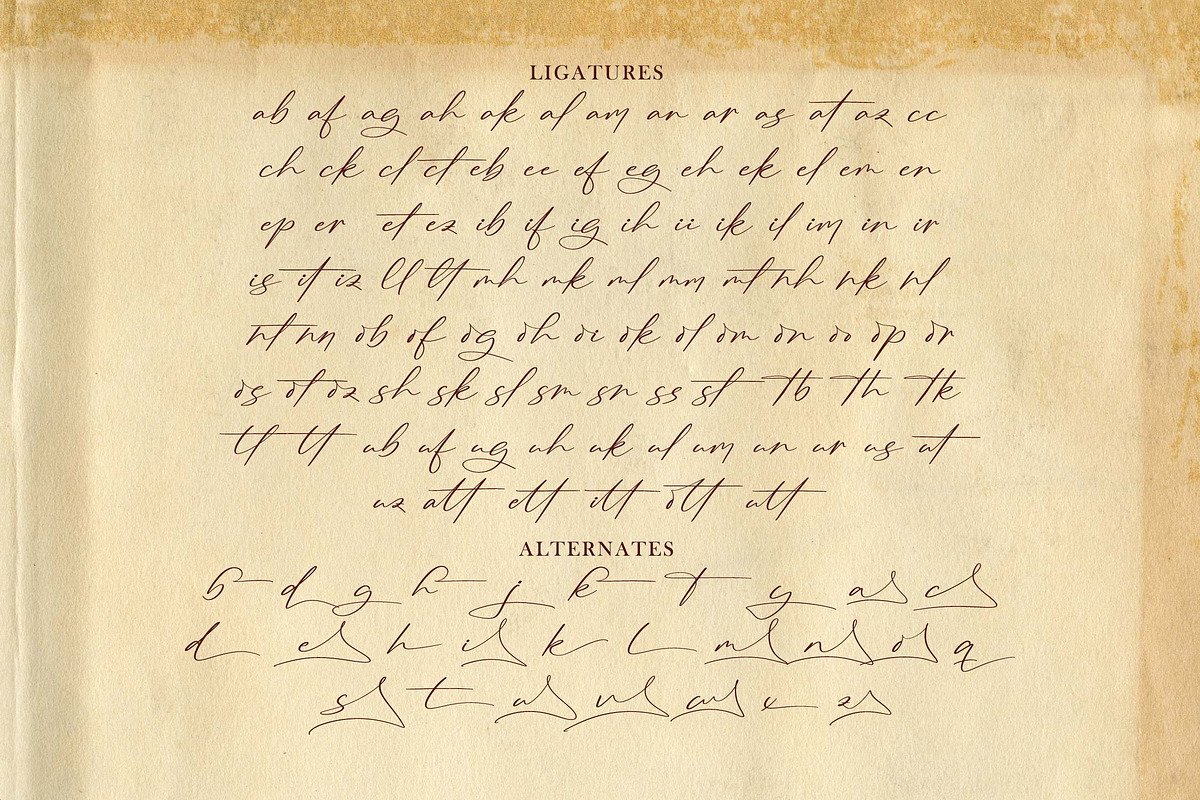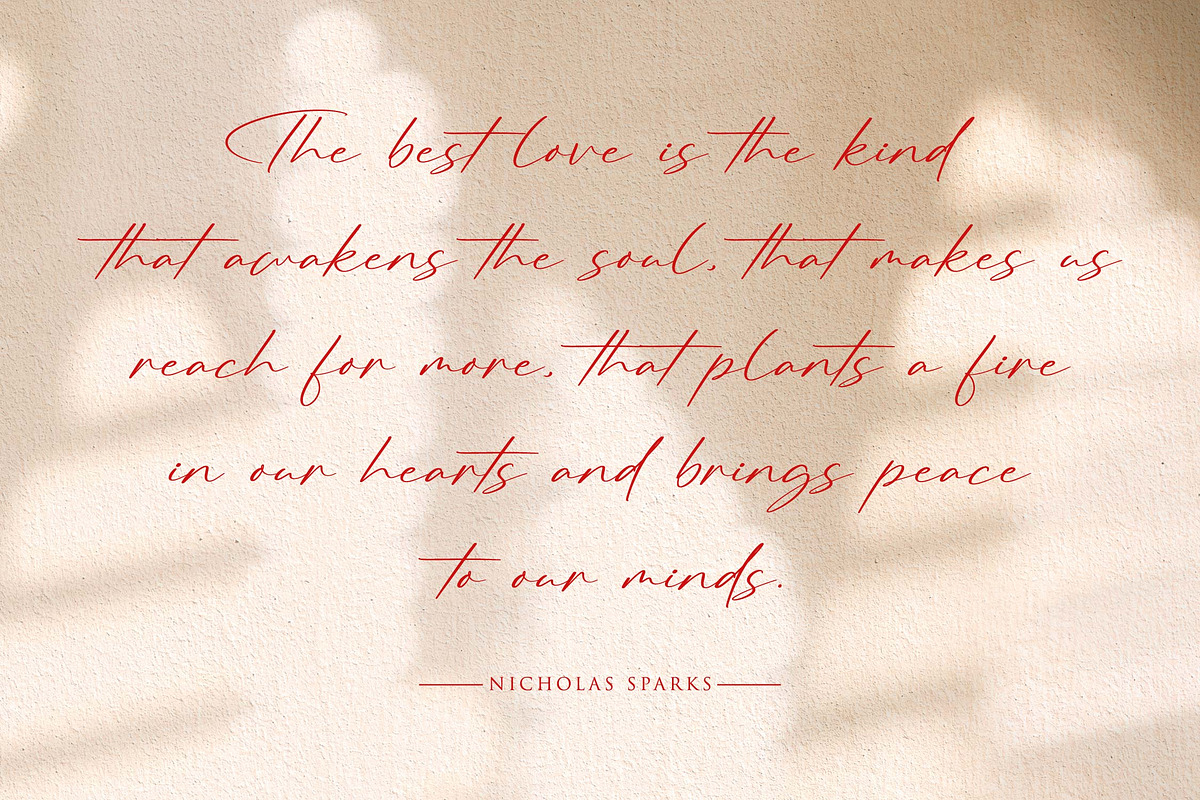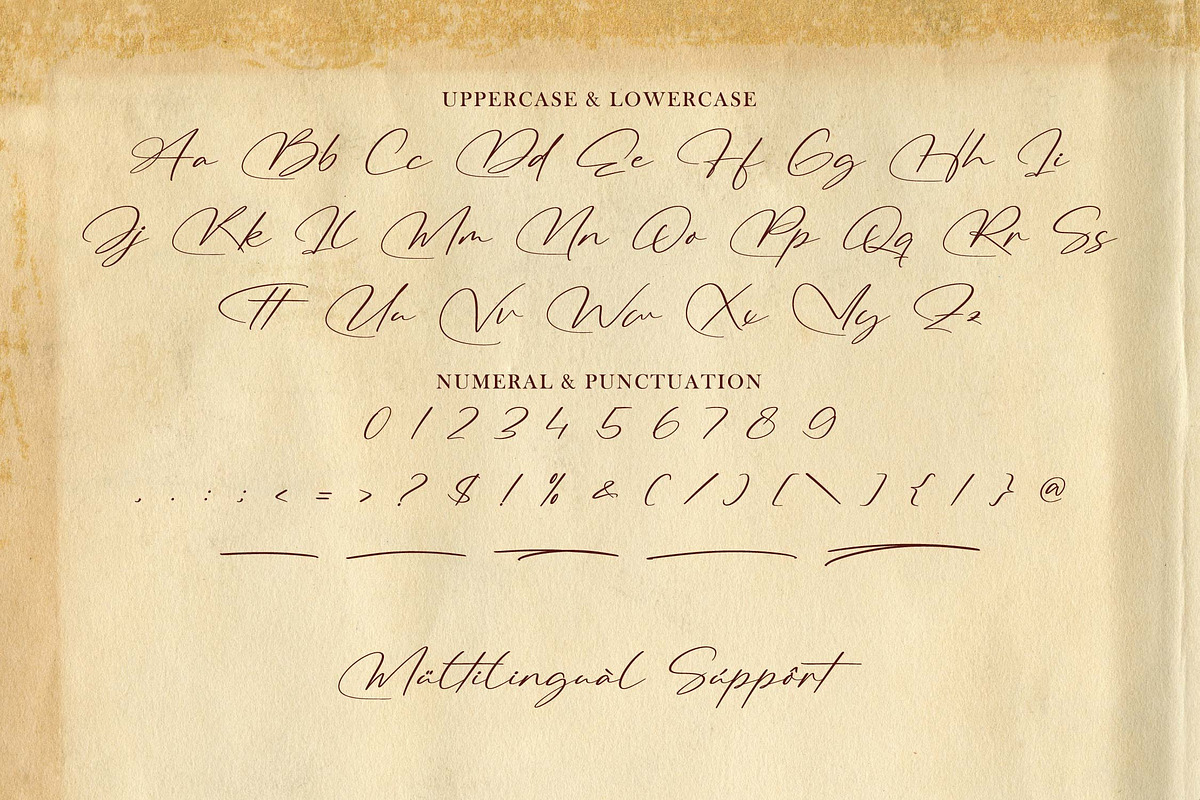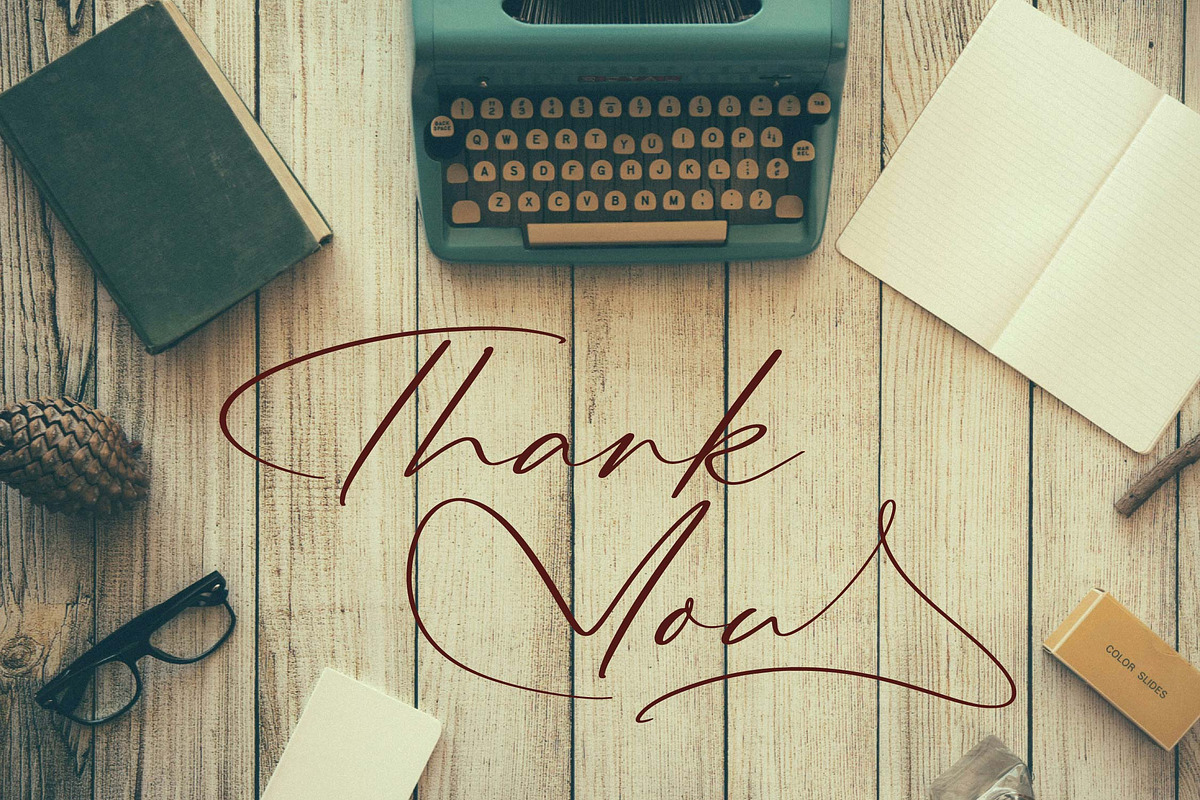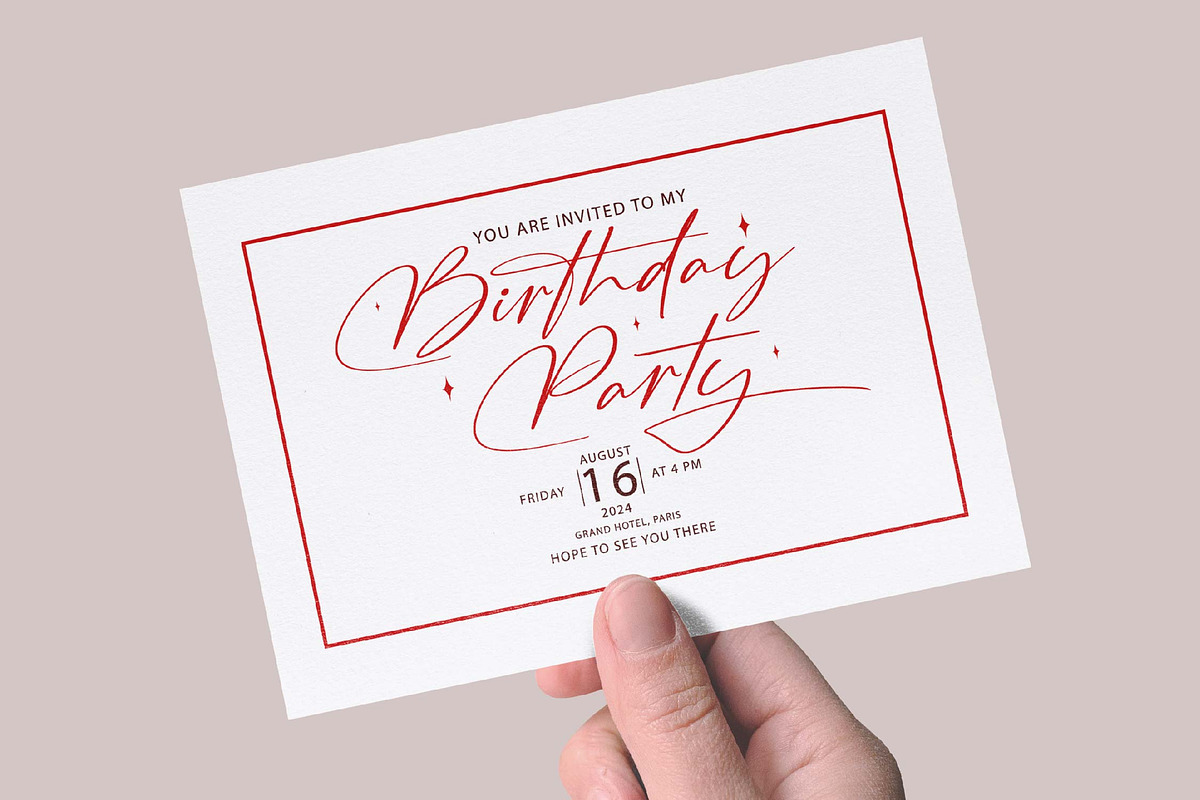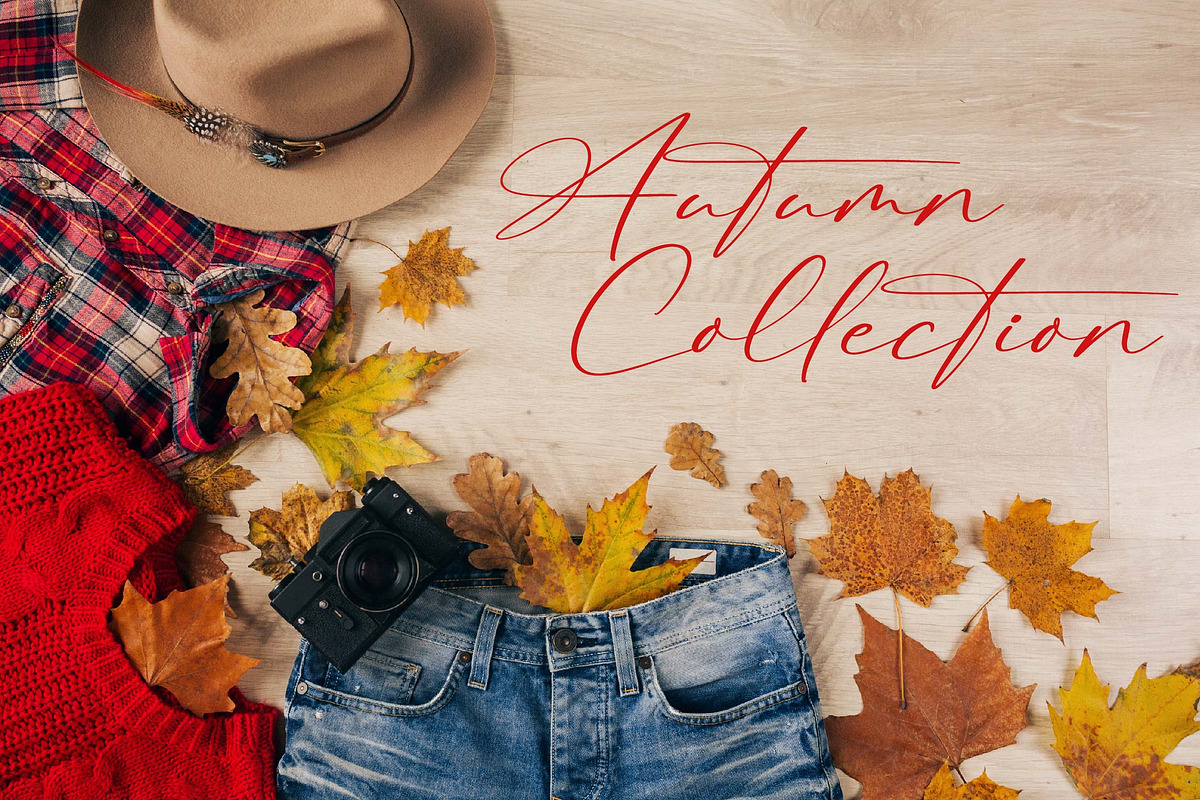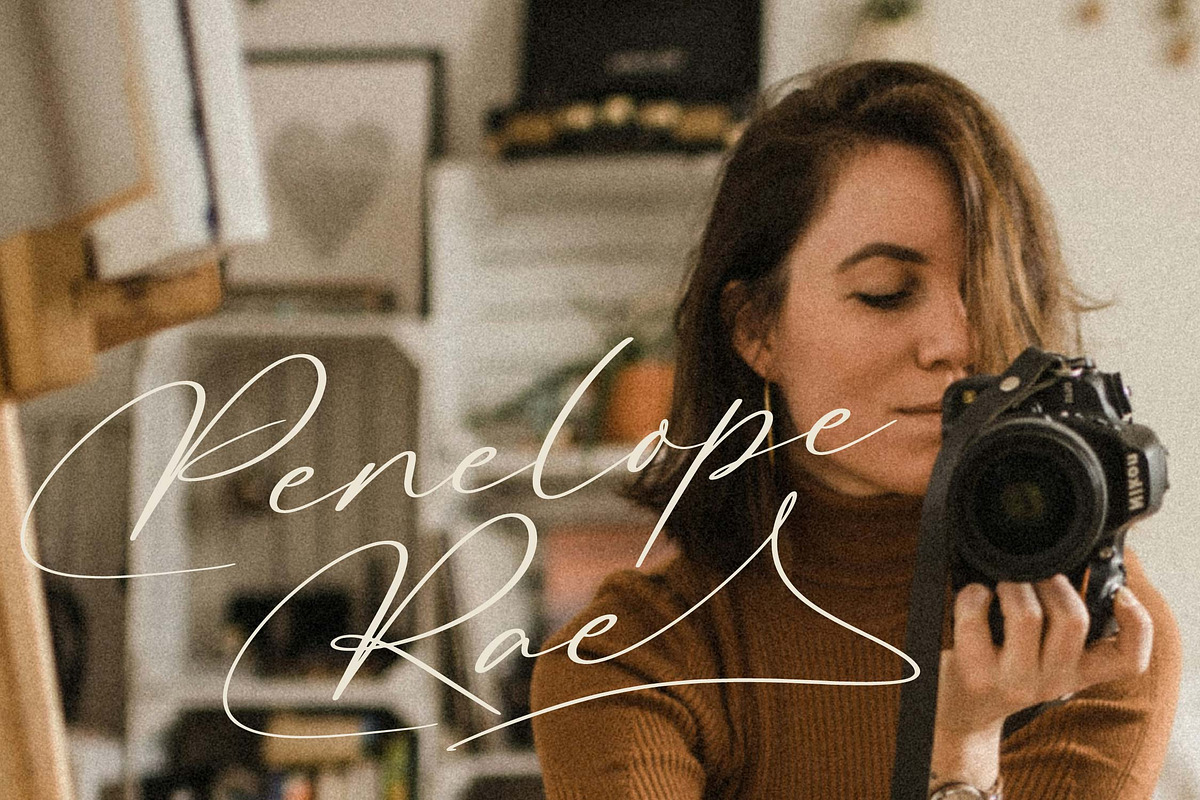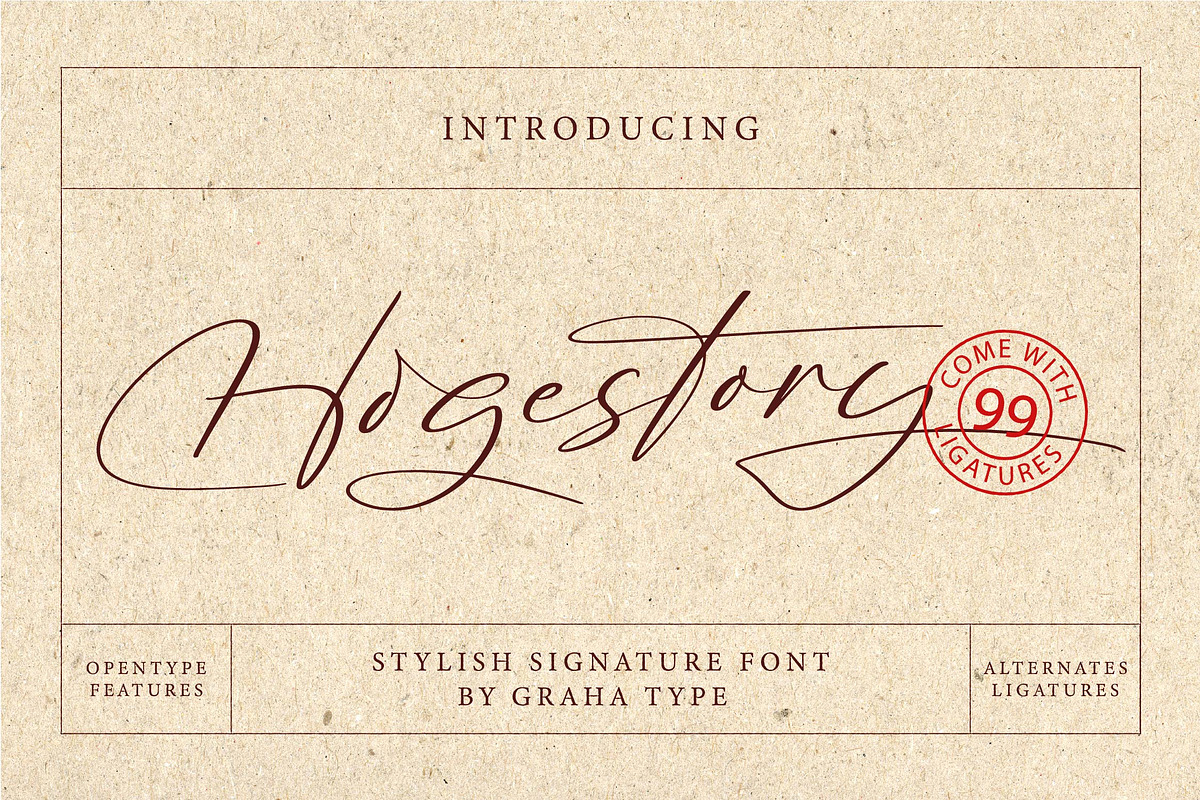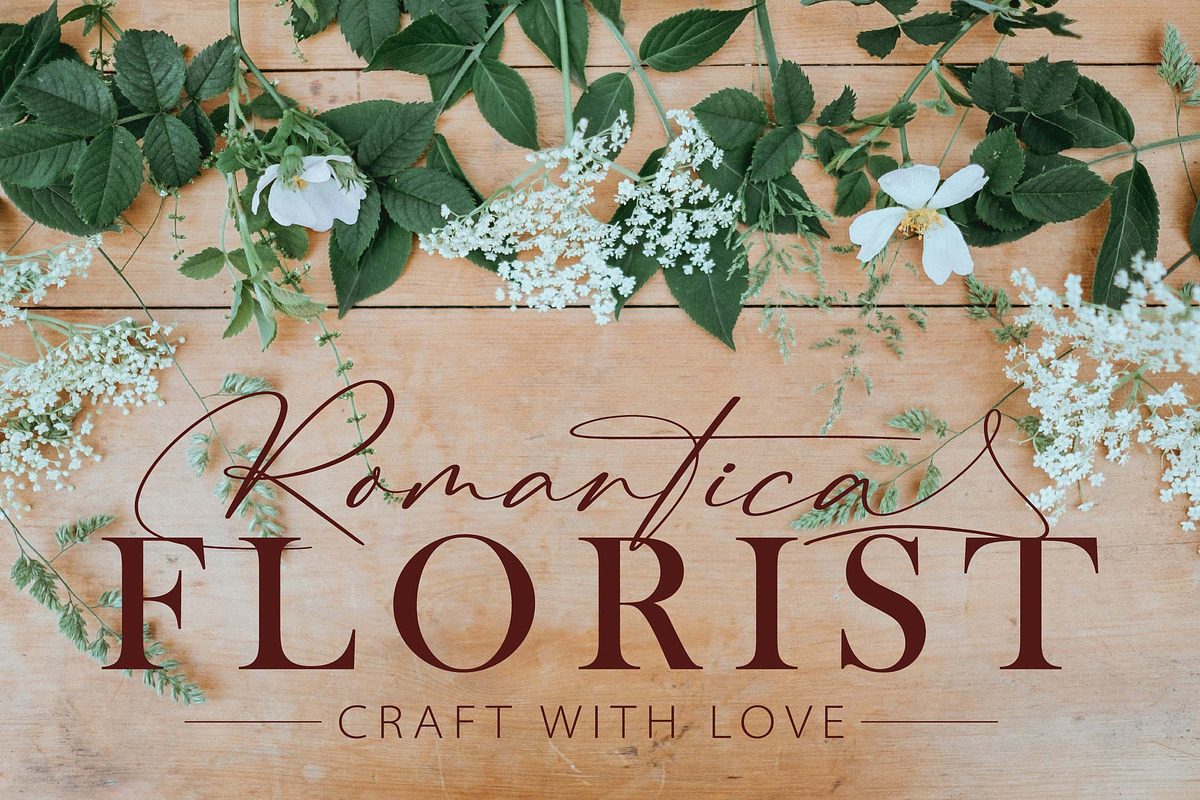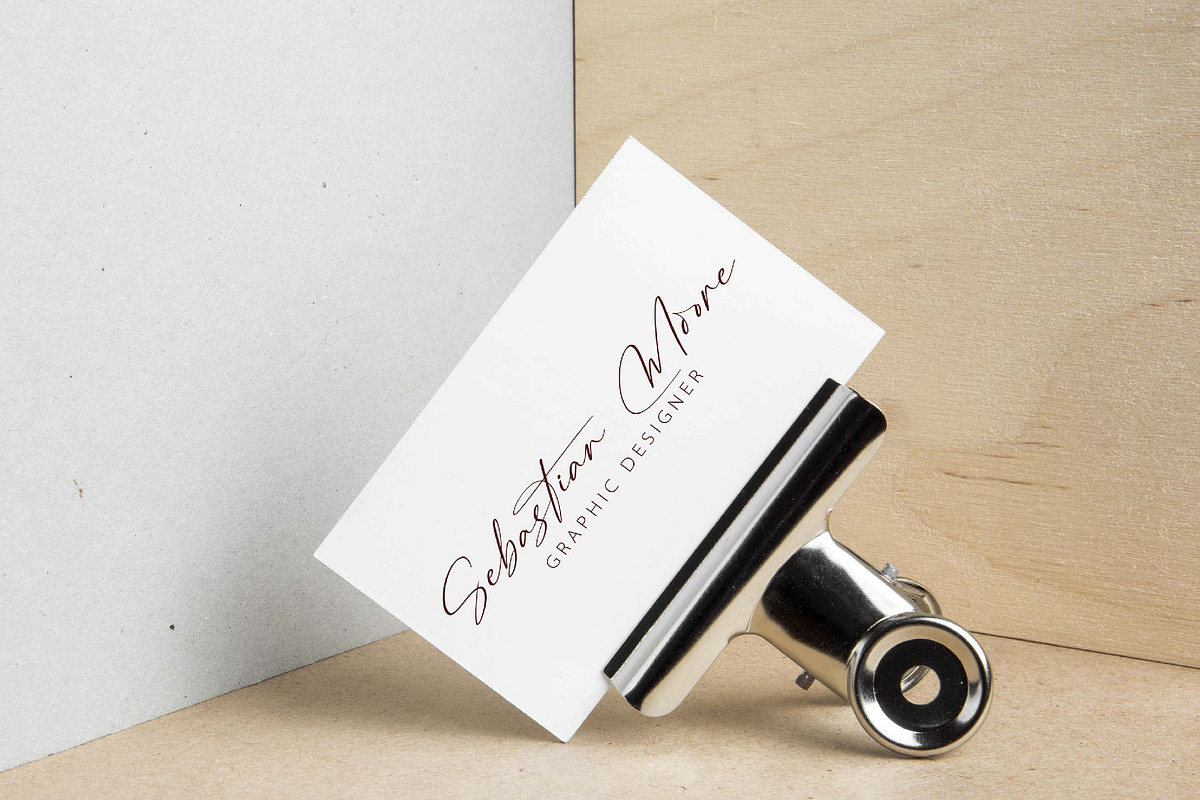
Hogestory - Stylish Signature
Hogestory is stylish signature font, this font is perfect choice for adding a touch of elegance and personalization to your designs. Styled like a beautifully crafted signature, this font combines sophistication with uniqueness. With its smooth curves and flowing lines. Each letter is designed to reflect an artistic, handwritten style, making it ideal for wedding invitations, brand logos, or any design project that aims to convey personality and class.